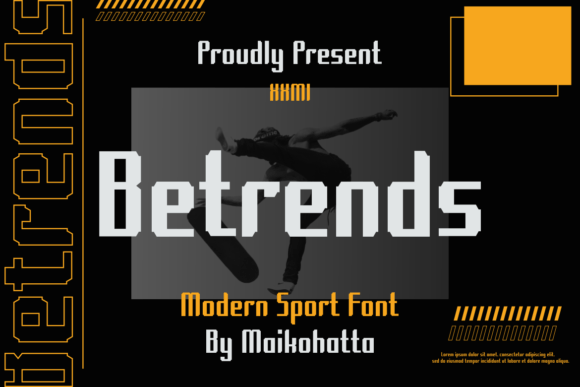
Introducing Betrends Font: The Modern Display Font You Need
Have you ever been in the middle of a design project, and suddenly, you’re stuck on finding the perfect font? I recall a recent experience where I was working on a logo design for a trendy esport team. The client wanted something bold, authentic, and eye-catching. After scouring through numerous font libraries, I stumbled upon **Betrends Font**, and it instantly clicked. In this article, I’ll share my experience with Betrends Font, its features, and how to make the most of it in your designs.
First Impressions: What I Love About Betrends Font
Betrends Font is a bold and authentic display font that has won my heart. Here are some of the things I love about it:
- ✨ Versatility: Betrends Font is suitable for a wide range of branding projects, including logos, template designs, esport, and more.
- ✅ Easy to Read: The font is clean and easy to read, even at smaller sizes.
- 💥 Impactful: Betrends Font is perfect for headlines, titles, and emphasis text, making it a great addition to any design.
While Betrends Font has impressed me, there are a few quirks to be aware of:
- 🤔 Limited Use Cases: Due to its bold nature, Betrends Font might not be the best choice for body text or lengthy paragraphs.
- ⚠️ Glyph Support: Some users might find the glyph support limited, but for most use cases, it should suffice.
The Story Behind Betrends Font
Betrends Font was crafted with the modern designer in mind. Inspired by the latest design trends and the need for bold, authentic typography, this font aims to elevate your branding projects. While the actual designer behind Betrends Font remains a mystery, it’s clear that the goal was to create a versatile and impactful font that would resonate with creative professionals.